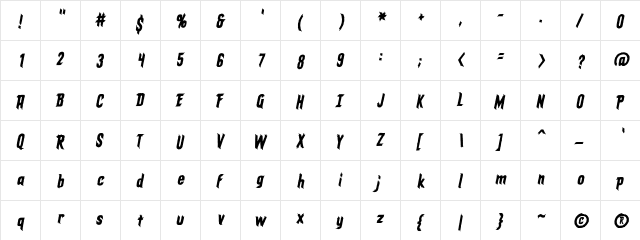
ElderGods BB Italic
| Foundry | Nate Piekos. Blambot.com |
| Designer | Nate Piekos |
Design Context for ElderGods BB Typeface
ElderGods BB offers clean, dependable letterforms without strong stylistic allegiance, making it a practical choice for designers who need flexibility. The dynamic lean of this cut emphasises speed and emphasis in any layout.
Pro Tip: Use ElderGods BB for emphasis, pull quotes, and subheadings where its slanted energy can add rhythm to the layout.